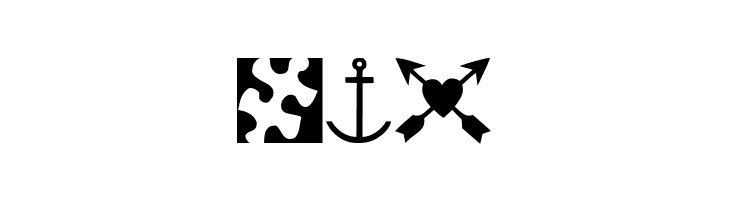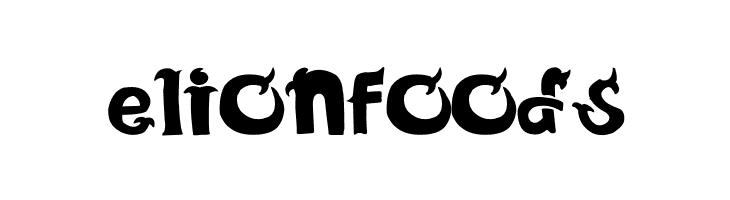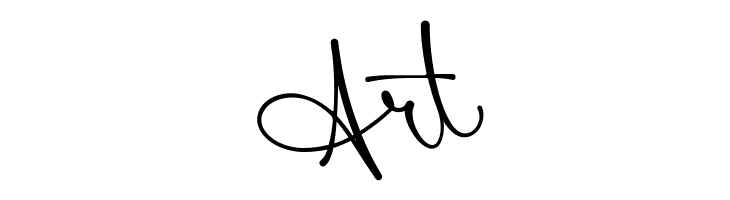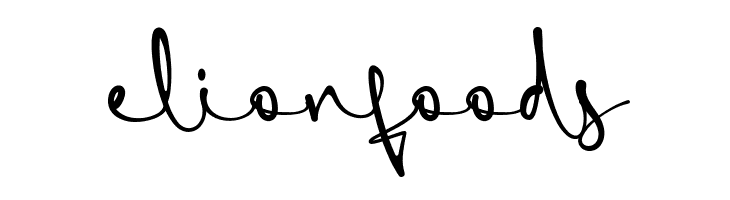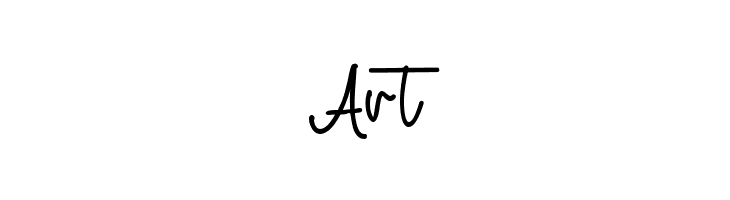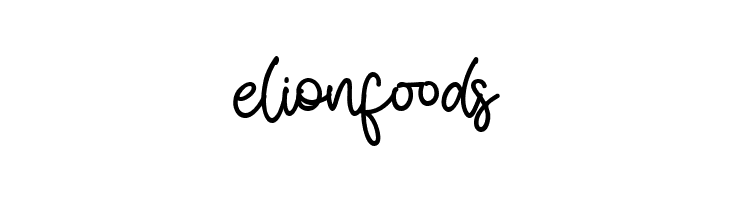
A bold, decorative icon set with diverse abstract and pictorial symbols.
A bold, playful font with whimsical, decorative elements.
A lively, expressive handwritten font with fluid, dynamic strokes.
A dynamic, handwritten font with fluid and playful strokes.
A playful, casual handwritten font with smooth, flowing curves.